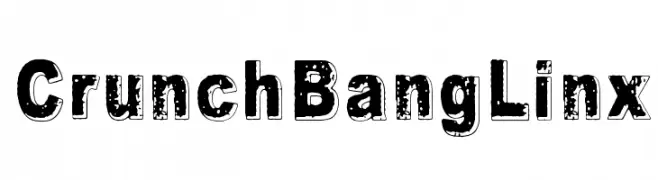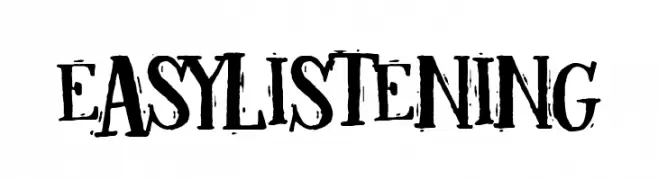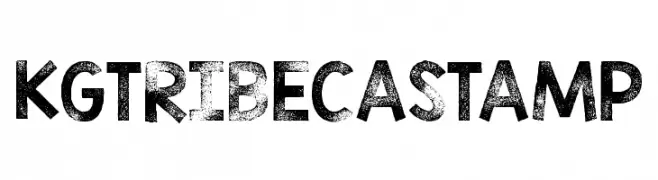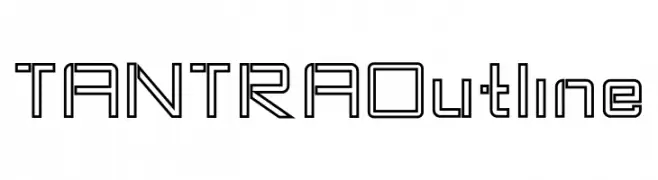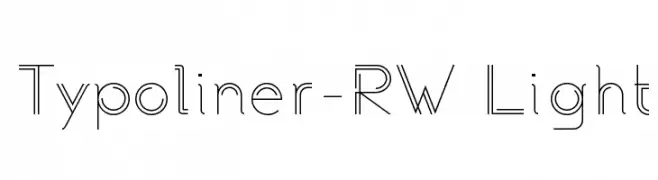
A bold, textured font with a vintage, handcrafted appearance.
A creative font with characters formed by parallel lines, offering a dynamic and textured look.
A bold, distressed font with a vintage, industrial style.
A bold, distressed font with a textured, vintage appearance.
A modern, geometric font with a double-line, outlined design.
A modern, double-line outline font with geometric shapes and clean lines.
A modern outline font with geometric, double-line characters.
A bold, distressed font with a vintage, stamped appearance.
A distressed, hand-drawn font with a rustic and vintage feel.
A bold, distressed font with a rugged, vintage appearance.